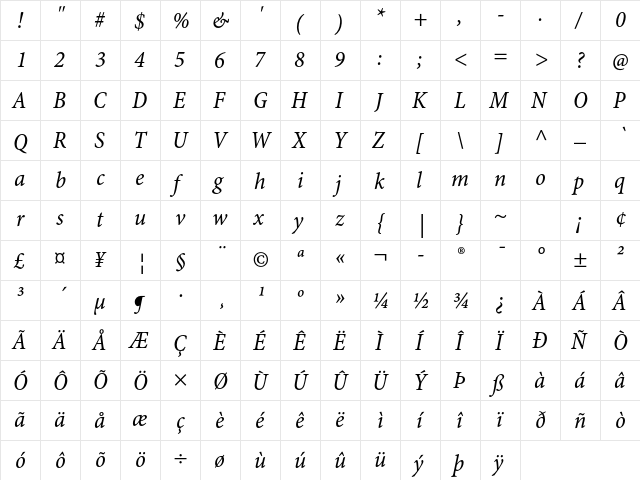
Minion Pro Cond Italic Caption Font Preview
| Designer | Robert Slimbach |
Design Context for Minion Pro Typeface
Minion Pro is a composed and adaptable typeface that performs quietly and consistently across a wide range of design contexts. The dynamic lean of this cut emphasises speed and emphasis in any layout. The condensed width makes it efficient for tight spaces without sacrificing legibility.
Pro Tip: Try Minion Pro for annotation and caption copy alongside an upright companion — the contrast in angle creates a dynamic but ordered typographic system.